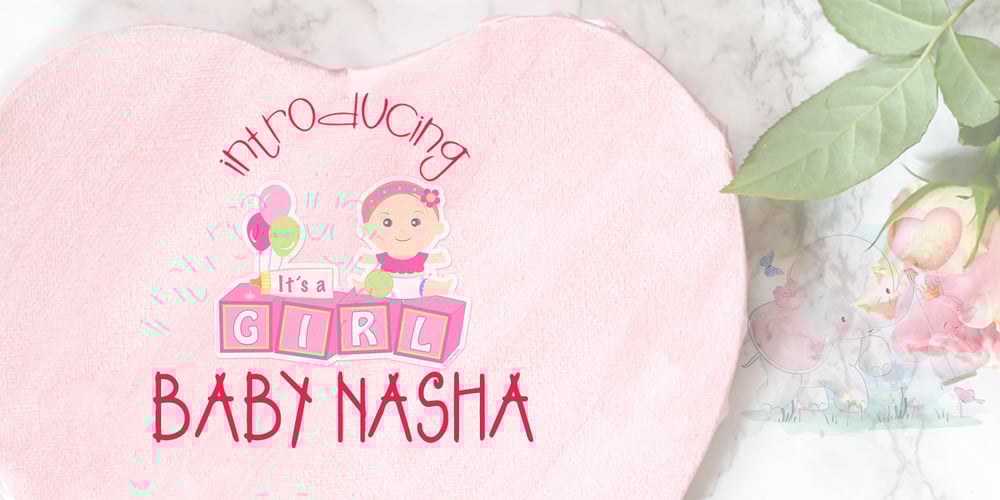
Baby Nasha
Baby Nasha font
Baby Nasha Font Family was designed by Bejeletter and published by Bejeletter. Baby Nasha contains 1 styles and family package options. Presenting the Handwritten Font- Baby Nasha is a cute font, can be used easily and simply because there are a lot of features in it to contain a complete set of letters lower and uppercase letters, assorted punctuation, numbers, multilingual support.This font can be used Such as logo branding, editorial design, stationery design, blog design, T-shirt design, modern advertising design, card invitation, art quote, home decor, book/cover title, special events and any more.What is included : lowercase letters uppercase letters punctuation numbers multilingual